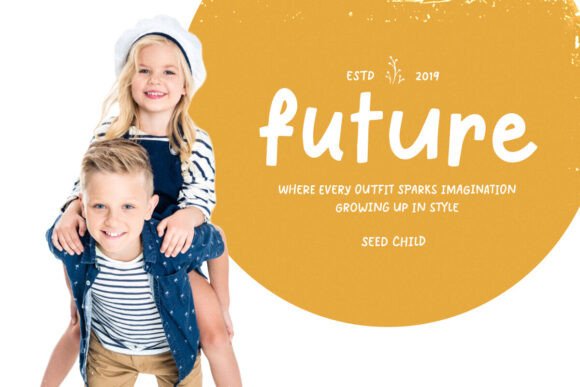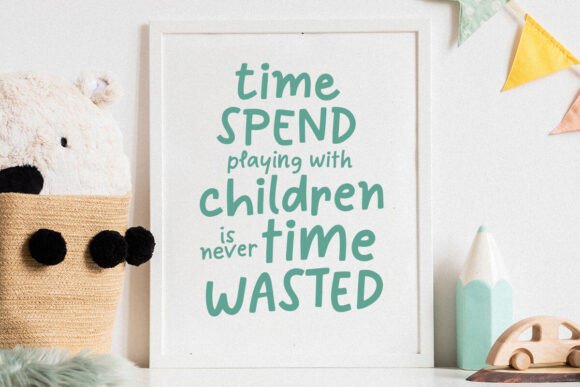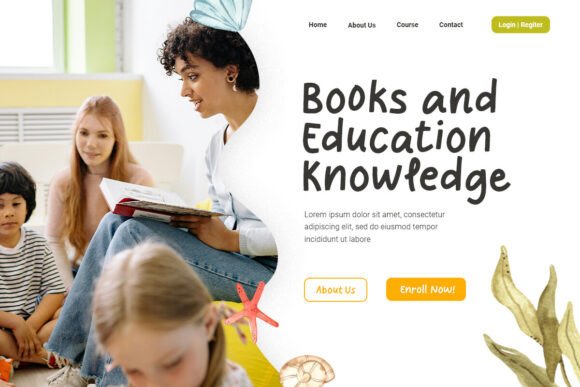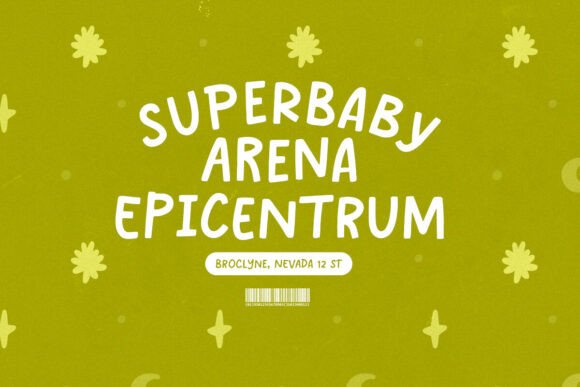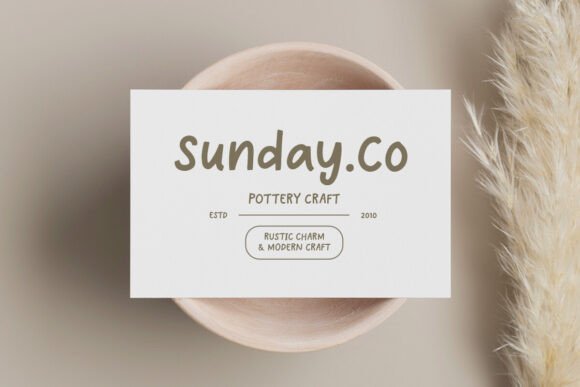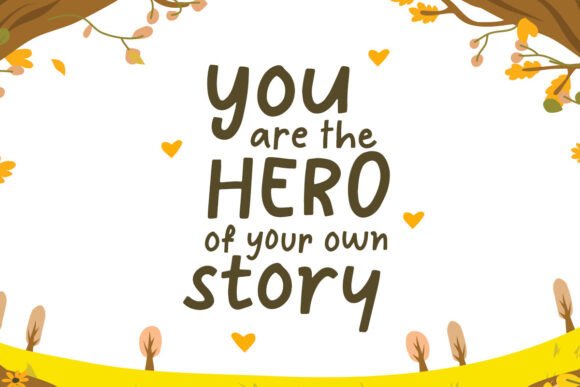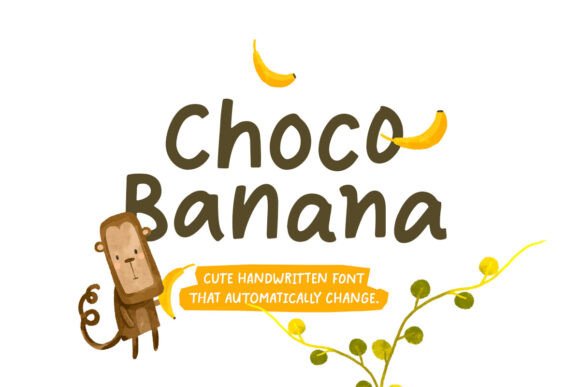
Introducing Choco Banana Font: The Ultimate Handwritten Font for Designers and Crafters
Are you tired of using the same old fonts in your designs? Do you want to add a personal touch to your projects? Look no further than the Choco Banana Font, a cute and playful handwritten font that’s perfect for designers and crafters alike. In this article, we’ll take a closer look at the features and benefits of Choco Banana Font, and explore how it can elevate your designs to the next level.
What is Choco Banana Font?
Choco Banana Font is a unique and charming handwritten font that’s designed to make your text and designs look more natural and manually handwritten. With its alternates feature, this font can change automatically, giving your projects a personalized and organic feel. Whether you’re working on a branding project, a craft design, or a social media post, Choco Banana Font is the perfect choice.
Key Features of Choco Banana Font
• Handwritten with love: Choco Banana Font is a carefully crafted handwritten font that’s designed to evoke a sense of warmth and personality.
• Alternates feature: With the alternates feature, you can change the font automatically, giving your text and designs a natural and organic look.
• Multi-language support: Choco Banana Font supports multiple languages, making it a versatile choice for designers and crafters around the world.
Benefits of Using Choco Banana Font
So why choose Choco Banana Font for your designs? Here are just a few benefits of using this amazing font:
• Add a personal touch: With Choco Banana Font, you can add a personal touch to your designs and make them stand out from the crowd.
• Save time: The alternates feature saves you time and effort, allowing you to focus on other aspects of your design.
• Increase creativity: Choco Banana Font’s unique and playful design inspires creativity and imagination, helping you to come up with fresh and innovative ideas.
• Perfect for crafters: Whether you’re a crafter, a maker, or a DIY enthusiast, Choco Banana Font is the perfect choice for your projects.
Here are some tips and tricks to help you get the most out of Choco Banana Font:
• Experiment with different sizes and colors: Play around with different sizes and colors to find the perfect combination for your design.
• Use it for headlines and body text: Choco Banana Font is perfect for both headlines and body text, making it a versatile choice for your designs.
• Combine it with other fonts: Try combining Choco Banana Font with other fonts to create a unique and eye-catching design.